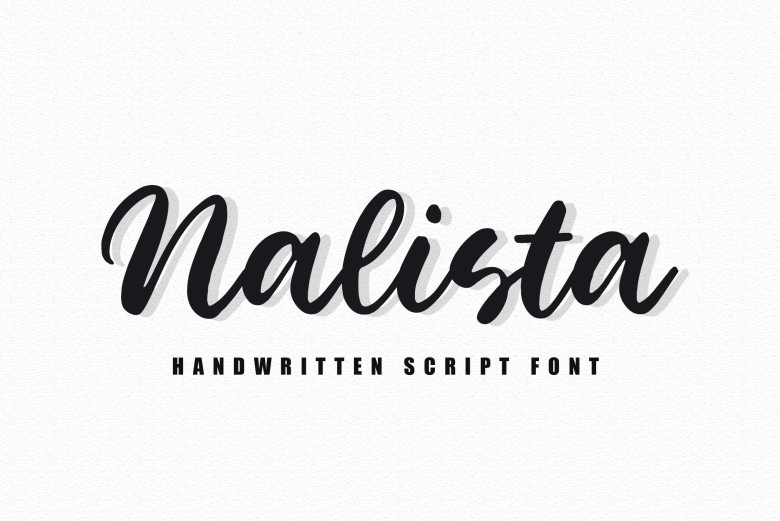
Nalista Font
Nalista Font This Handwritten Script Font which is absolutely gorgeous, emitting a sense of elegance It seems to have a great aesthetic appeal in the company of delicate curves and flowing lines, detailed with fine work you’ll find nowhere else.
For achieving the lofty but romantic ambiance in your design needs with this type of image; be it your wedding invitations or brand materials Nalista only adds elegance and originality.
Nalista Handwritten Script Font